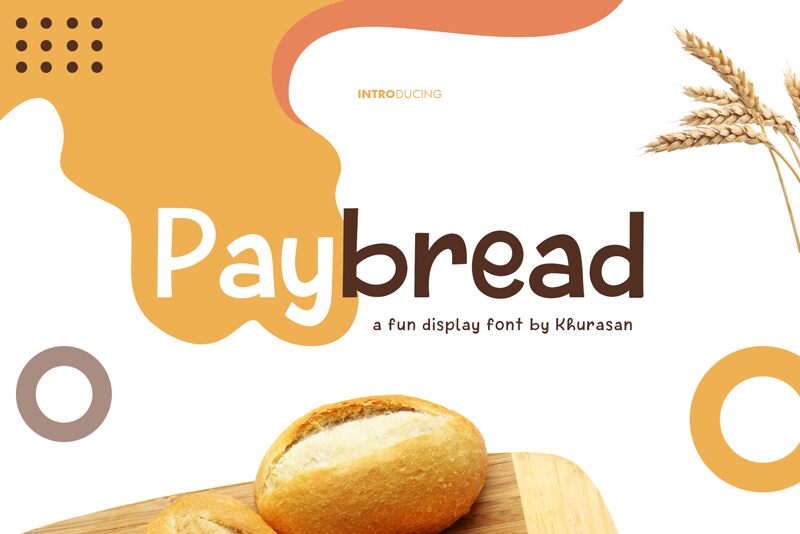
Paybread
Paybread, crafted by Khurasan, is a captivating display font that exudes a playful, cartoon-inspired charm. Its whimsical letterforms, with their gentle curves and quirky details, create a delightful visual experience that instantly captures the attention. This font radiates a sense of warmth and approachability, making it an excellent choice for projects seeking to convey a lighthearted, friendly atmosphere.
The Paybread font's distinctive style lends itself seamlessly to a wide range of applications, from vibrant branding and packaging designs to eye-catching headlines and decorative elements. Its versatility allows designers to breathe life into their projects, whether they're crafting engaging social media content, designing playful book covers, or creating captivating signage and advertisements.